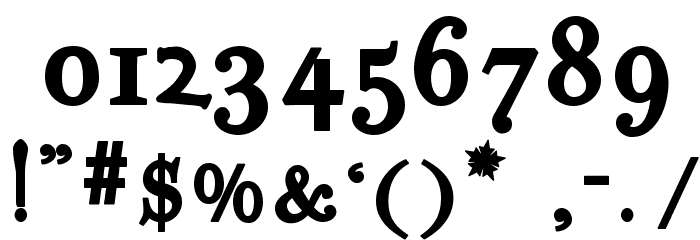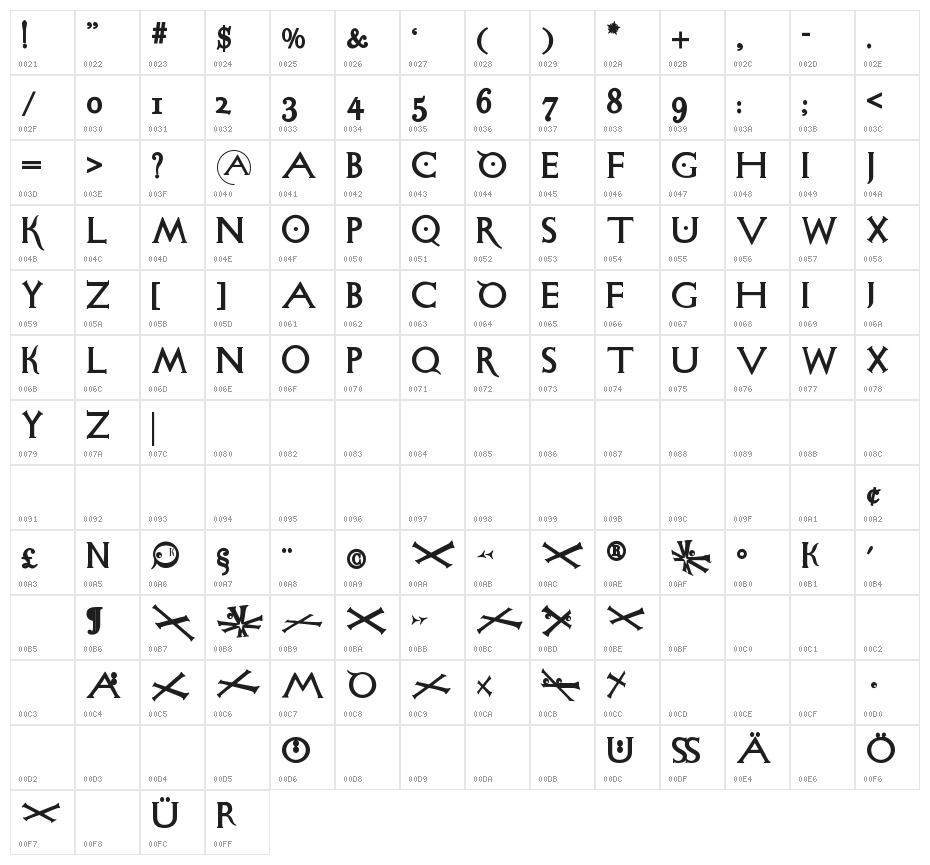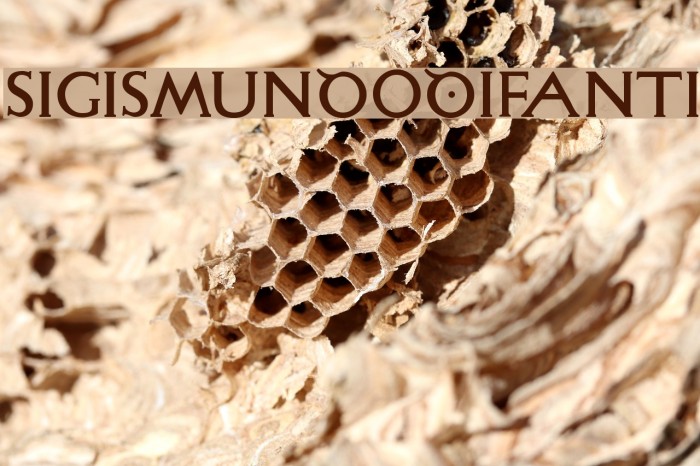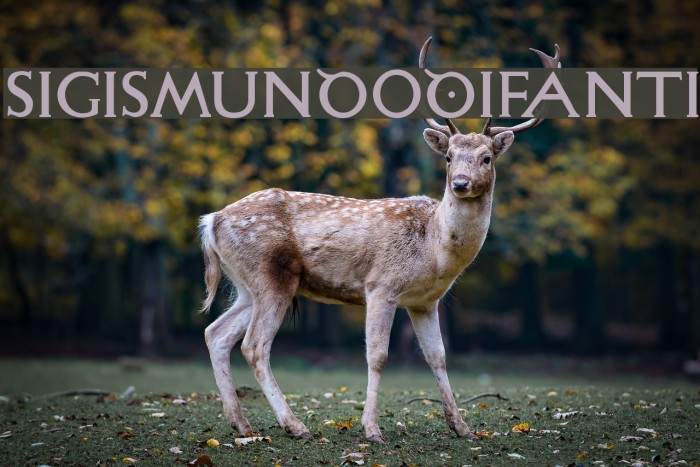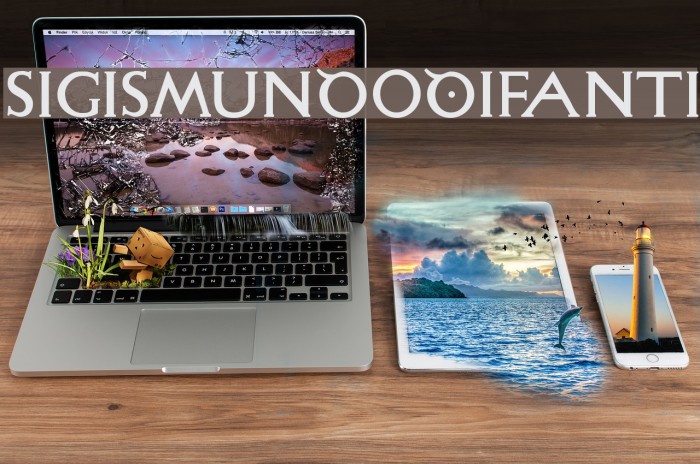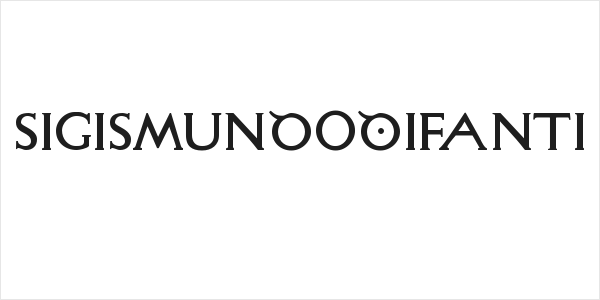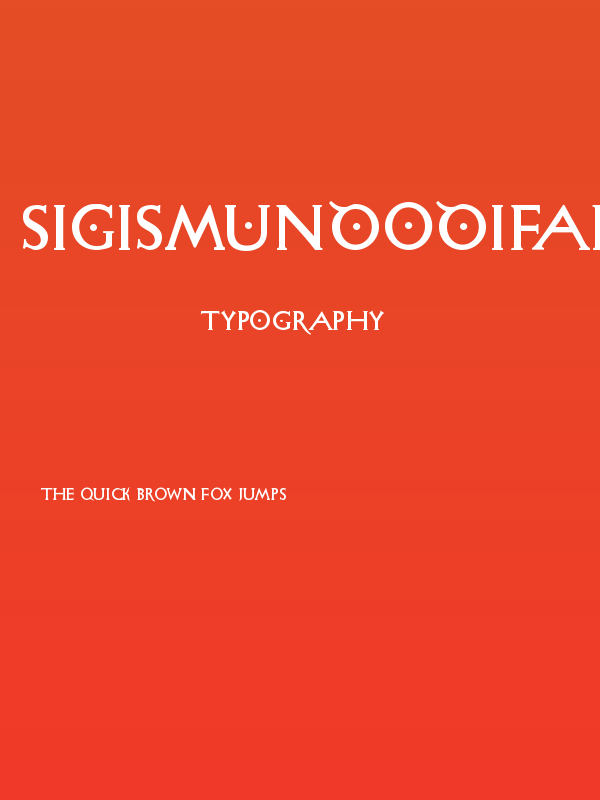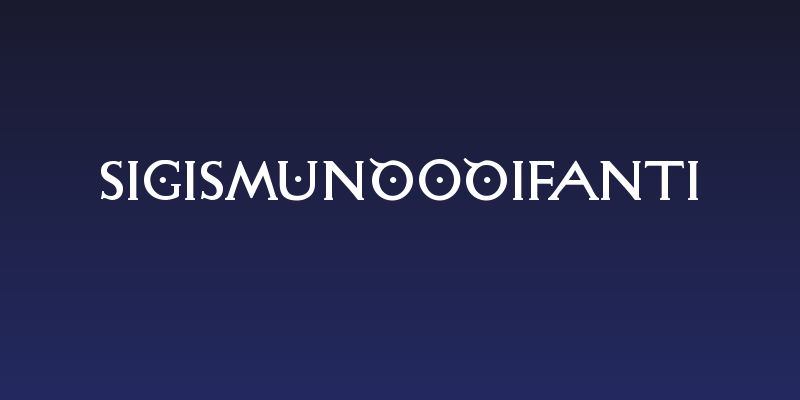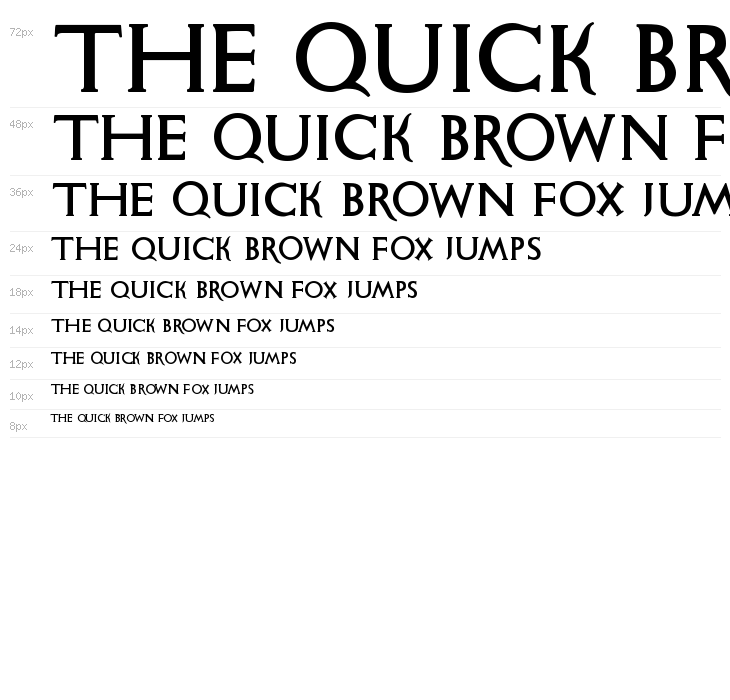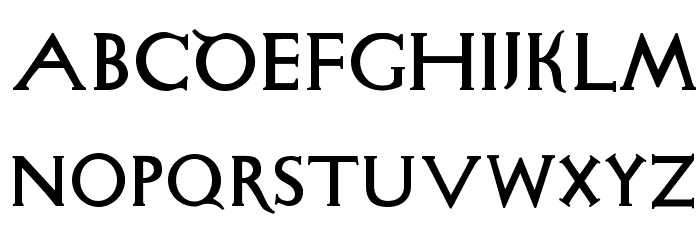
SigismundoDiFanti Font
SigismundoDiFanti Description
This font features a distinctive and elegant design with a classic serif style. The uppercase letters are bold and commanding, with unique flourishes that add a touch of sophistication. The lowercase letters maintain a consistent style, offering a harmonious blend with the uppercase. The numerals are robust and clear, ensuring readability. Special characters are thoughtfully designed, maintaining the overall aesthetic. This font's balance of traditional serif elements with modern touches makes it versatile for various design needs.
| Use Case | Headlines, Logos, Editorial design |
| Proposed Projects | Ideal for branding, editorial design, book covers, and formal invitations. |